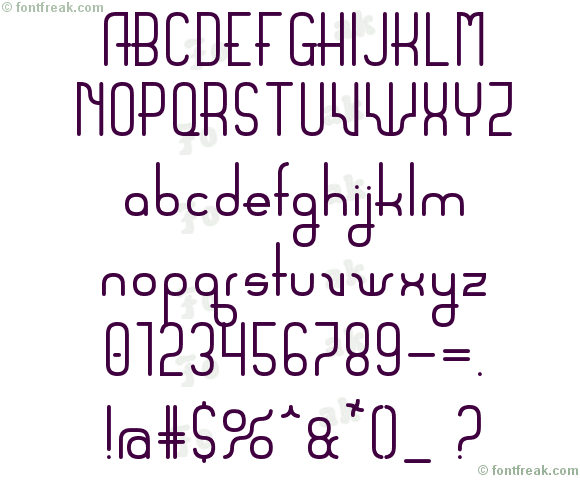
Sanserifing
Saserifing by Extate is a striking sans-serif typeface that seamlessly blends modern minimalism with unique character. This font is perfect for those seeking a contemporary look with a hint of personality. With its clean lines and balanced proportions, Saserifing features a medium stroke weight that provides excellent legibility while maintaining an elegant presence. The subtle contrast in the letterforms creates visual interest, and the well-thought-out spacing enhances readability.
The versatility of Saserifing makes it an ideal choice for a variety of applications. It works beautifully for branding projects that require a fresh and approachable aesthetic, such as logo designs for cafes or boutiques. This font is also well-suited for digital content, making it a fantastic option for social media graphics and blog headers. When it comes to print, Saserifing shines in restaurant menus, where its clarity and style can elevate the dining experience. Additionally, it can be used in wedding invitations, adding a touch of modern elegance to any special occasion.
What sets Saserifing apart is its unique ability to convey professionalism without sacrificing creativity. The font's distinctive characteristics and contemporary style provide a fresh perspective, ensuring that any project utilizing it stands out. For those seeking a Saserifing font free download, this typeface offers the perfect balance of aesthetics and versatility, making it an essential addition to any designer's toolkit.